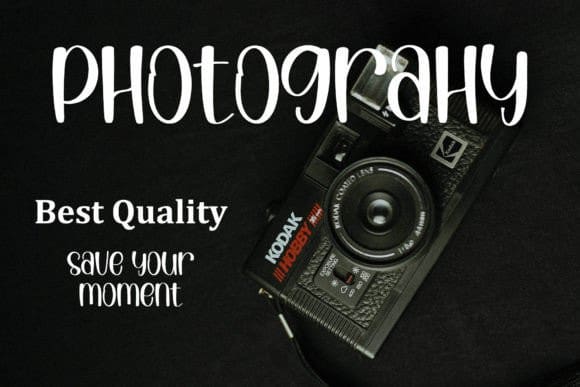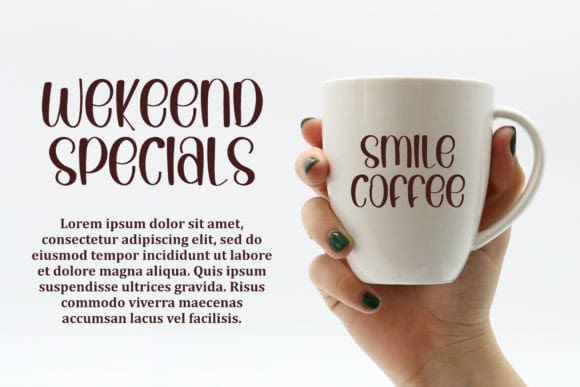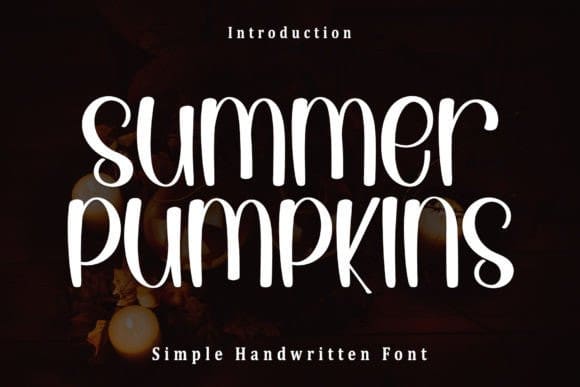
Summer Pumpkins Font
Summer Pumpkins Font is a neat and beautiful handwritten font described by an elegant touch, perfect for your favorite projects. Fall in love with its incredibly distinct and timeless style, and use it to create spectacular designs!